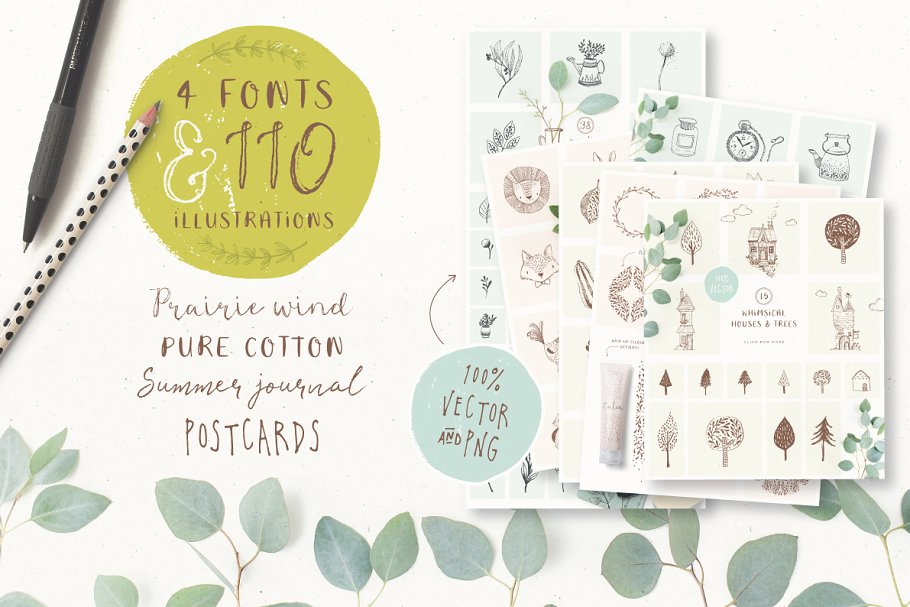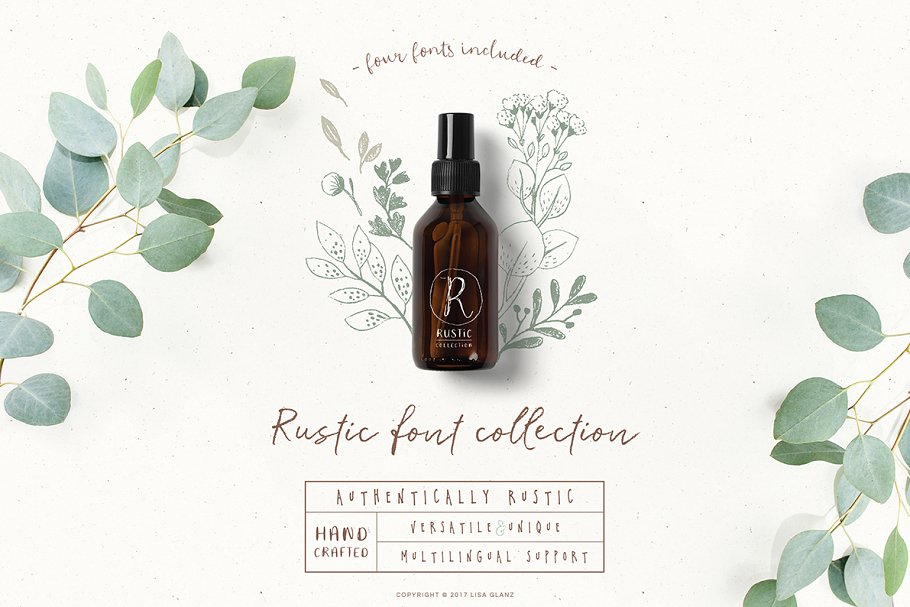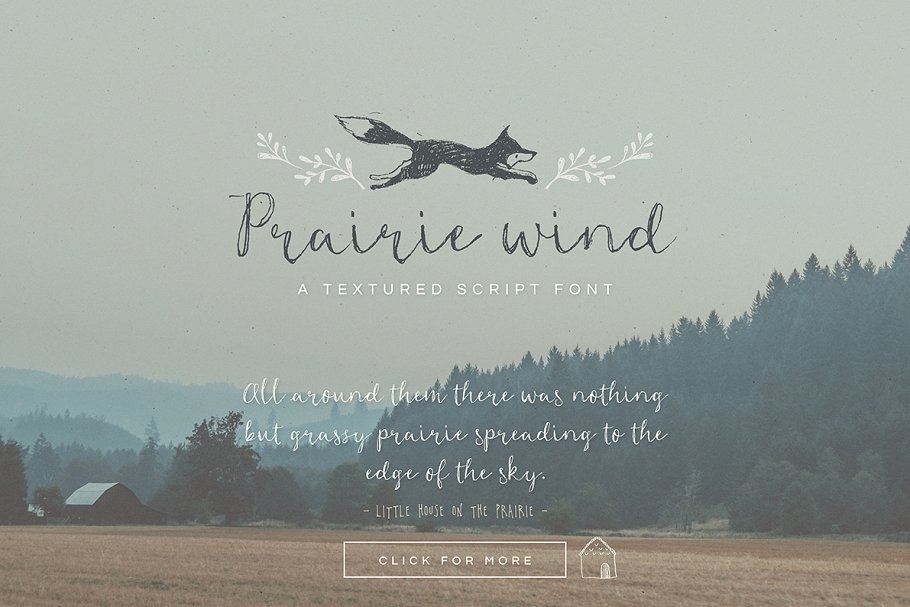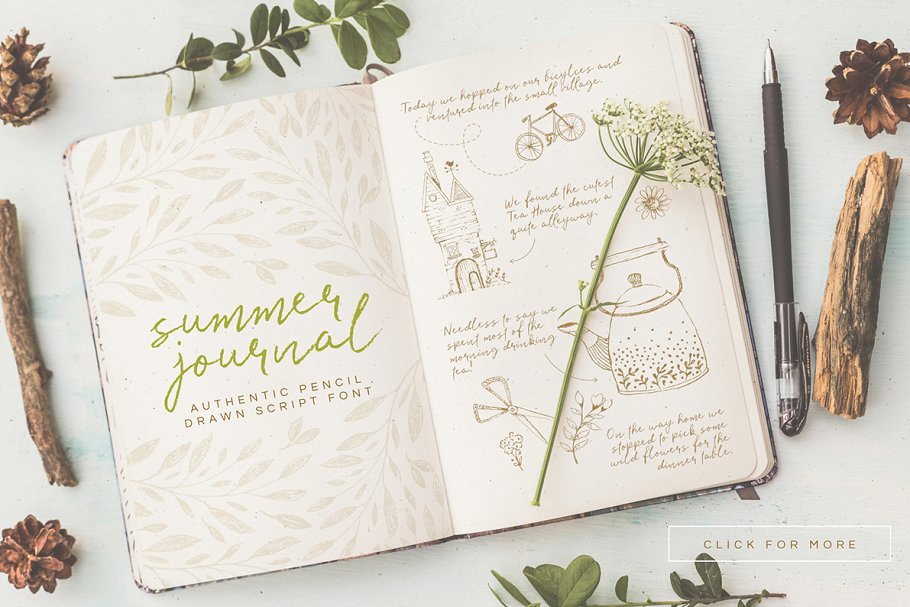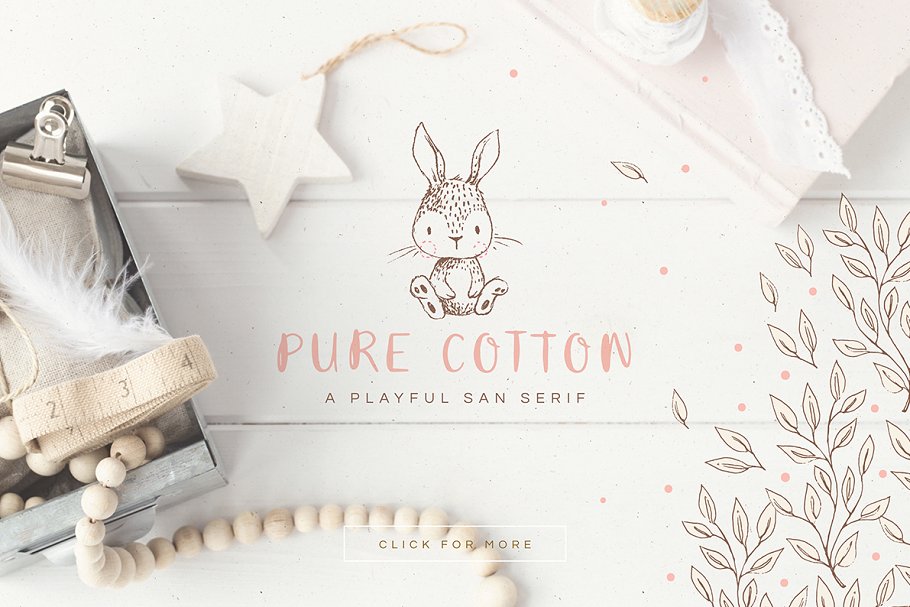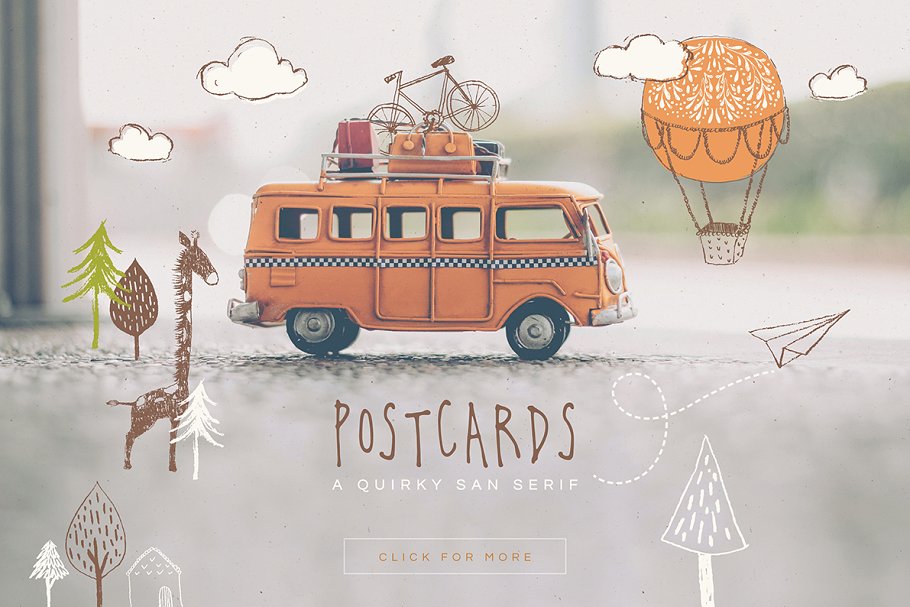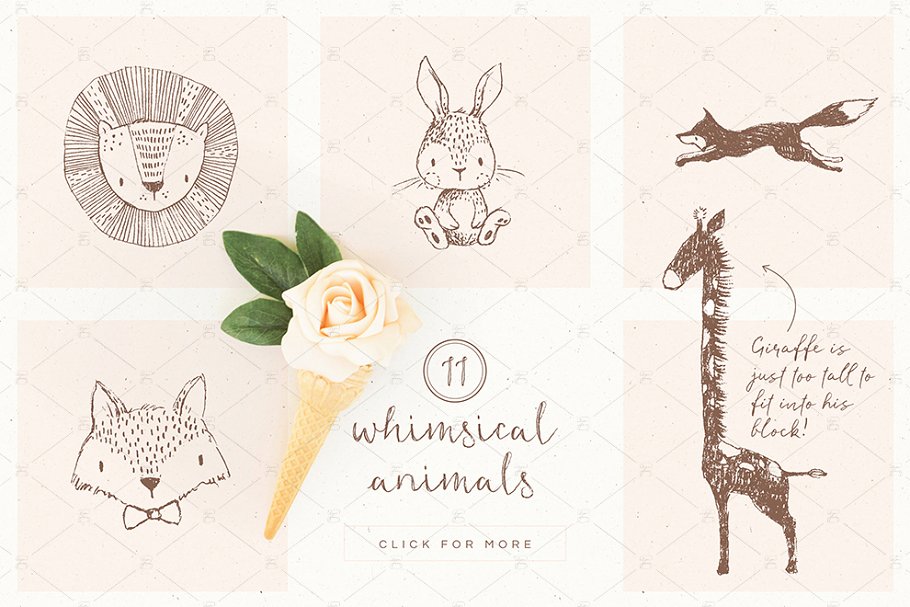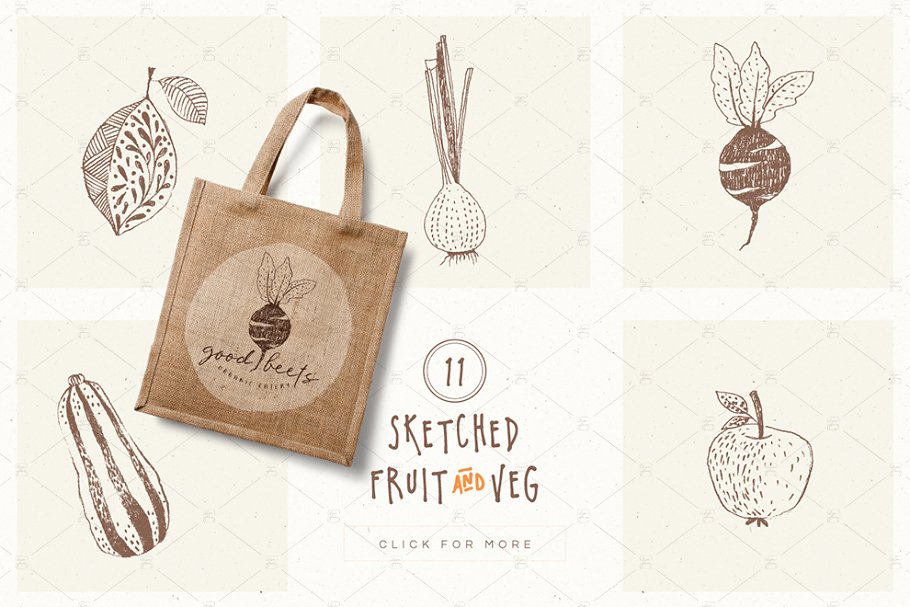
About the Rustic Resource Collection volume Font
Add a beautiful, hand crafted look to your work with the fabulously RUSTIC RESOURCE COLLECTION!Featuring 4 unique fonts and 110 hand sketched illustrations, this carefully curated collection is packed full of rustic goodness, I love pushing the boundaries and discovering techniques to keep that grungy sketchy look to my vector work, This pack is no exception
I’ve made sure to retain my individual sketched strokes so you can enjoy the benefits of that authentic hand-crafted look, Be sure to click and enlarge to get a closer look!You’ll be whipping-up gorgeous rustic-style designs in minutes, Perfect for branding, wedding invites, posters and planners